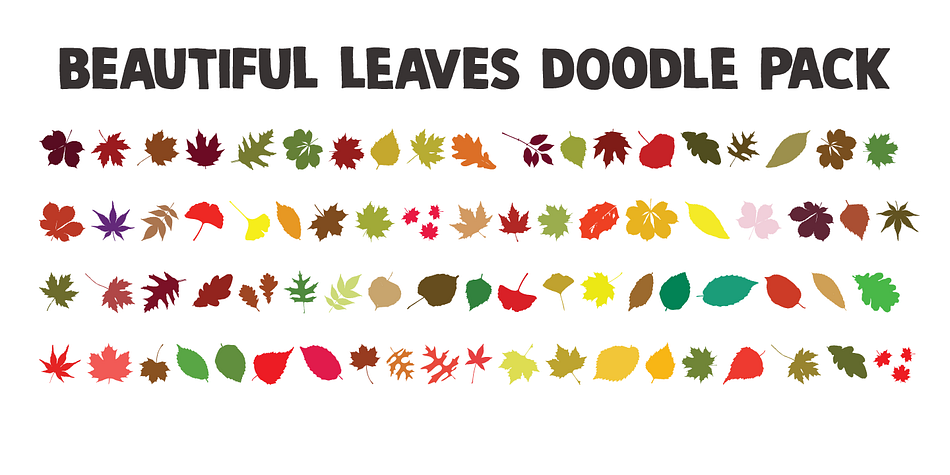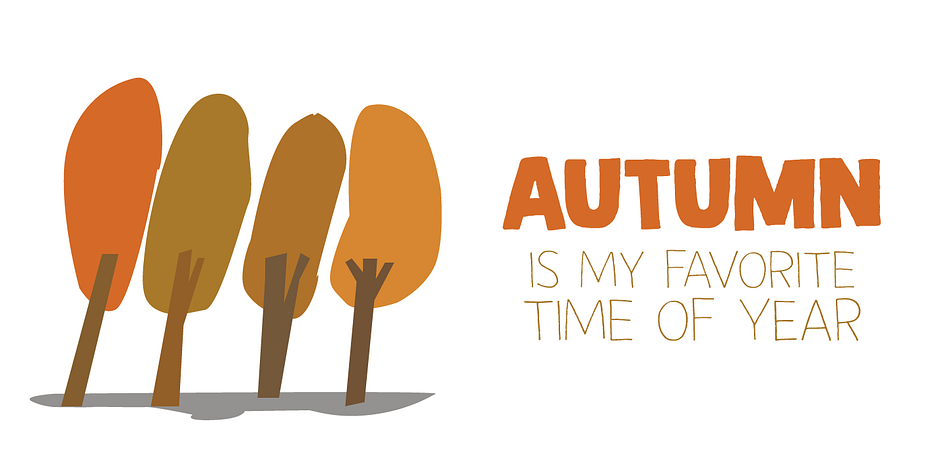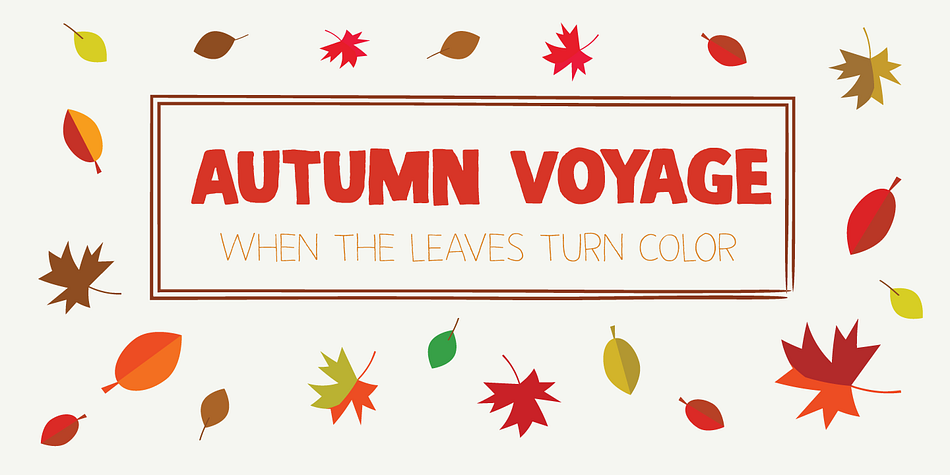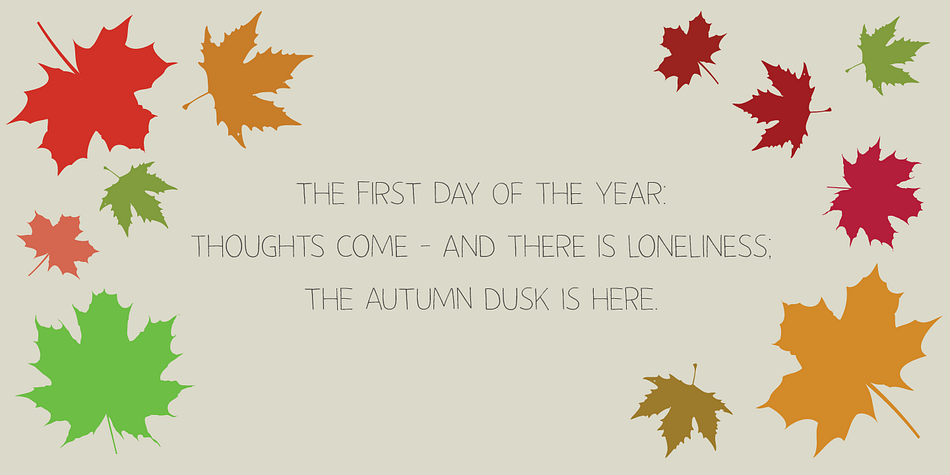
Autumn Voyage is a display sans, hand display and dingbat font family. This typeface has five styles and was published by Hanoded.
Autumn is my favourite time of the year: I love the colors in the forest, the colder temperature and the stormy winds. Autumn Voyage is a very nice set of hand made fonts: a fat one, a thin one and a lovely autumn leaves doodle pack.
Comes with a heap of diacritics as well.